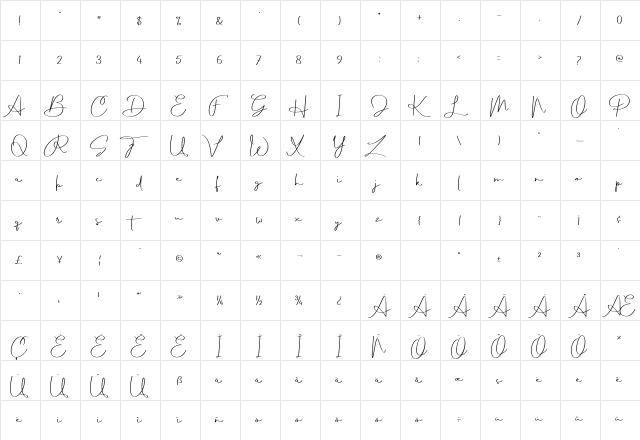
Balmond Regular
Design Context for Balmond Typeface
Balmond is a composed and adaptable typeface that performs quietly and consistently across a wide range of design contexts.